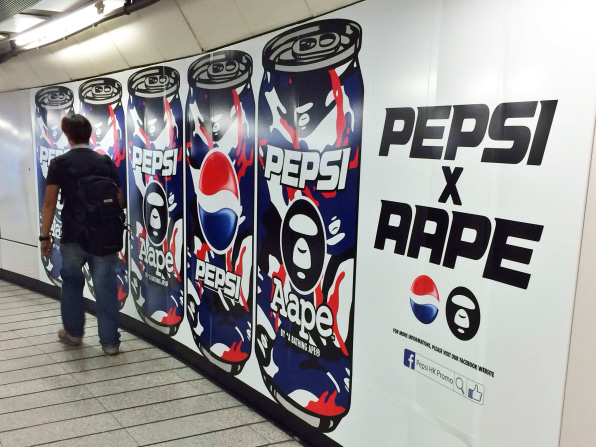
It’s hard to imagine an advertising error greater than this one: Pepsi partnered with Japanese clothing company BAPE (A Bathing Ape) to cross-brand Pepsi and BAPE’s sub-brand Aape. Unfortunately, a poor choice in typeface choice ensued, and the Aape “A” ended up looking a whole lot like an “R.” So Aape became Rape.
Pepsi x Rape! Live for now!
Of course, the inevitable question of “how did no one catch this?” has already stormed Reddit. I’d posit that, in this case, it might have been that the marketing message behind one of the largest soda brands and most respected fashion brands in the world may have actually been produced and proofed by a surprisingly small team of people. Even still, how did no one catch this?